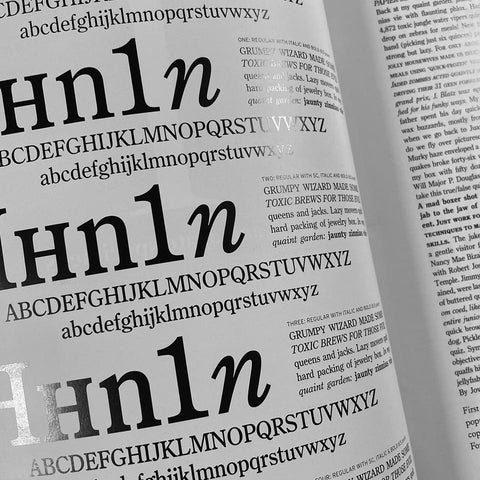
Font Bureau Type Specimens: David Berlow
We’re grateful when the title of a book is its own description. It means we don’t have to write as much. This one is a 2007 showing of faces by David Berlow for Font Bureau. Although the Berlow and the foundry are still around (more or less), many of his faces have been discontinued and aren’t available as OpenType fonts. In many cases this is too bad. As Berlow’s work becomes bought up by other foundries that’re potentially less interested in preserving his history, learning about his work will become more difficult when only poking around on the Internet. Sometimes plain-old ink on paper makes for a pretty good record even if it means we have to get out of chairs to find it and look stuff up.
- Written and Composed: Christian Schwartz
- Publisher: Font Bureau, 2007